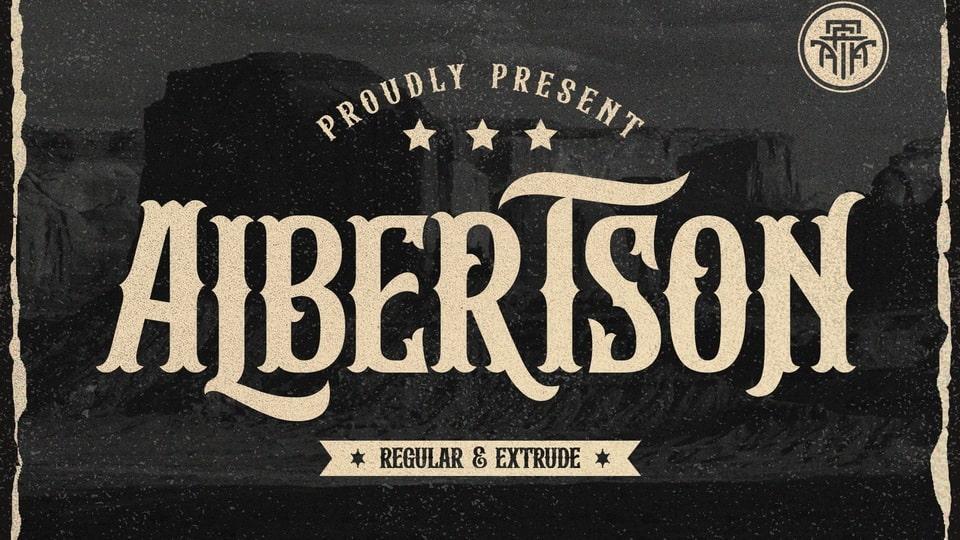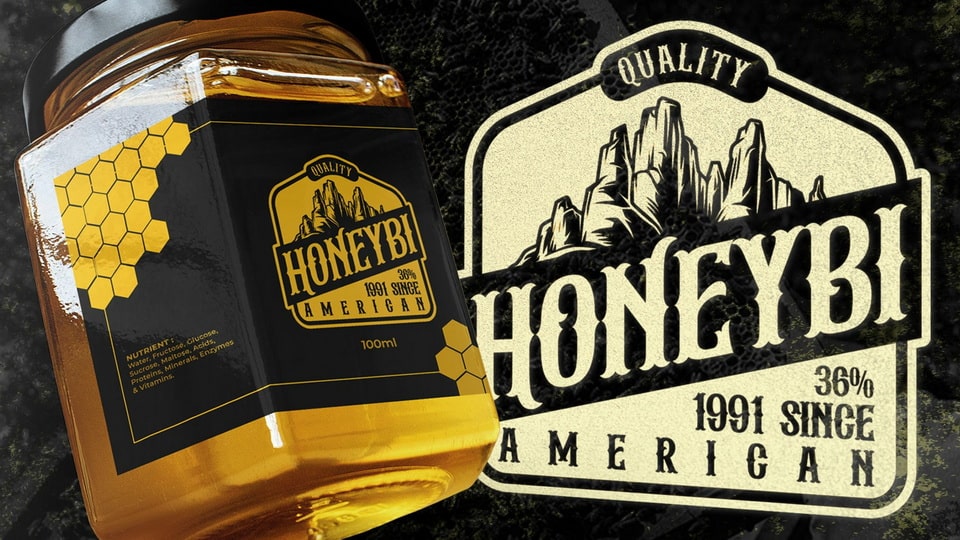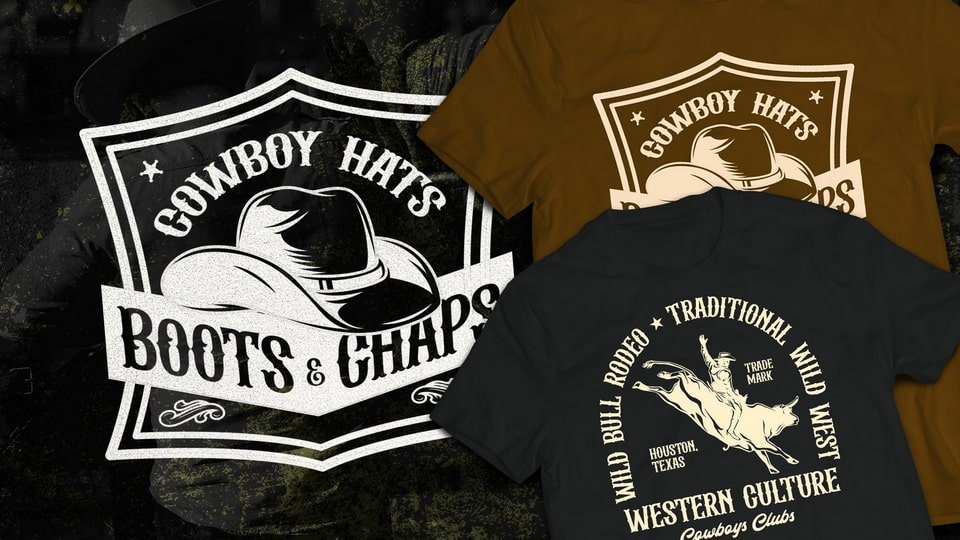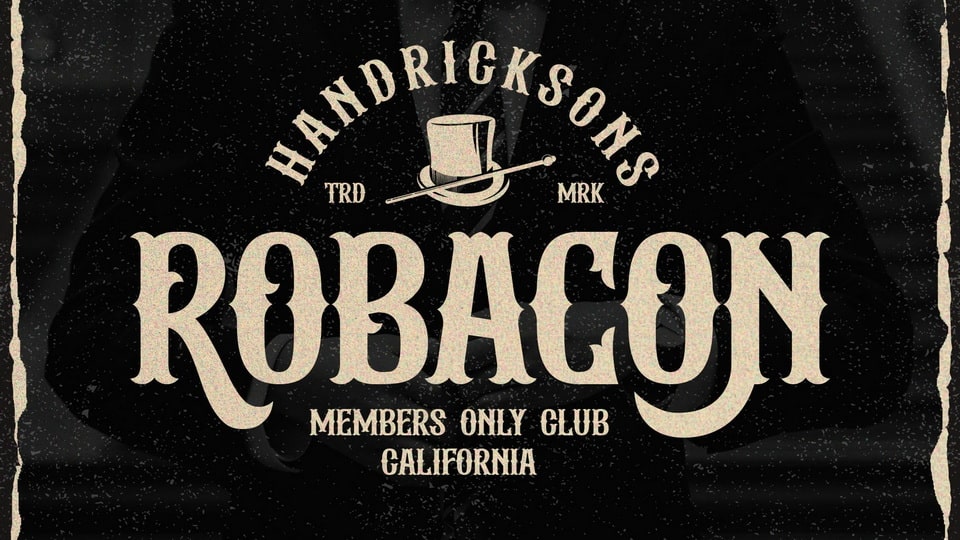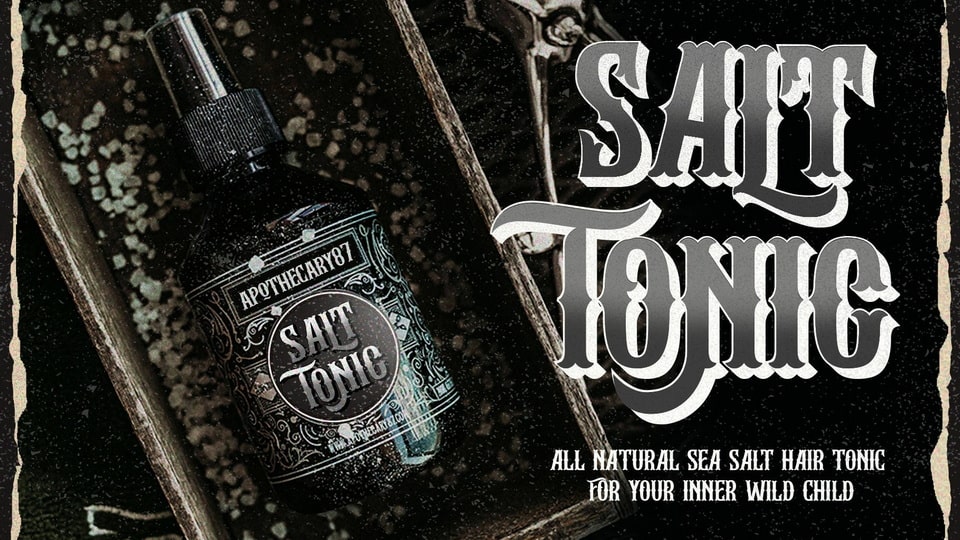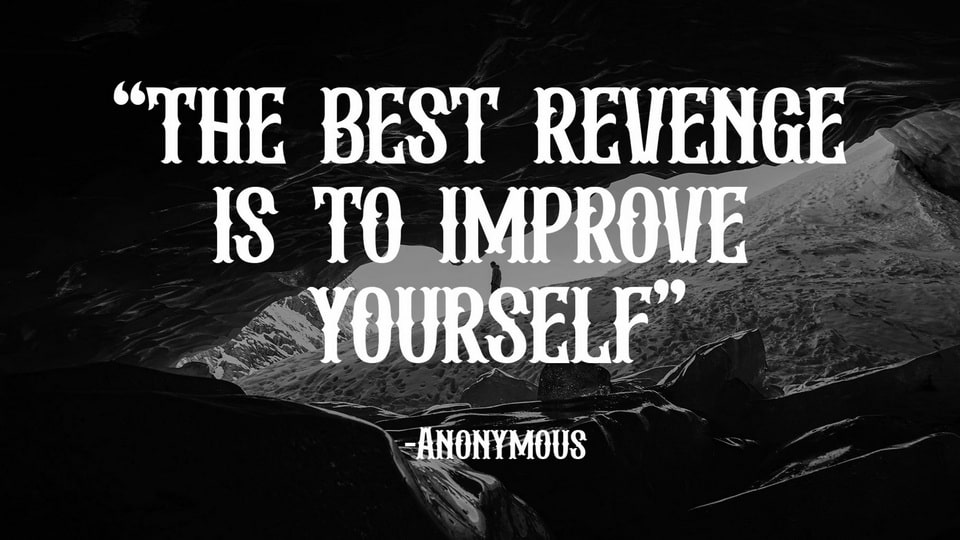
Albertson Font
Albertson is a strong retro font. Made with vintage references like an old school automotive, signage, cowboy, lumberjack, woodwork, and DIY handicraft. The modern western font that you can apply for your classic design such as the logo, logotype, label, packaging, signage, and more!
Albertson is an all-caps font with a strong design, equipped with 4 sets of alternates characters that you can mix and match to get the more solid typographic looks! Also complete with multilingual, packed in total 350+ glyphs.